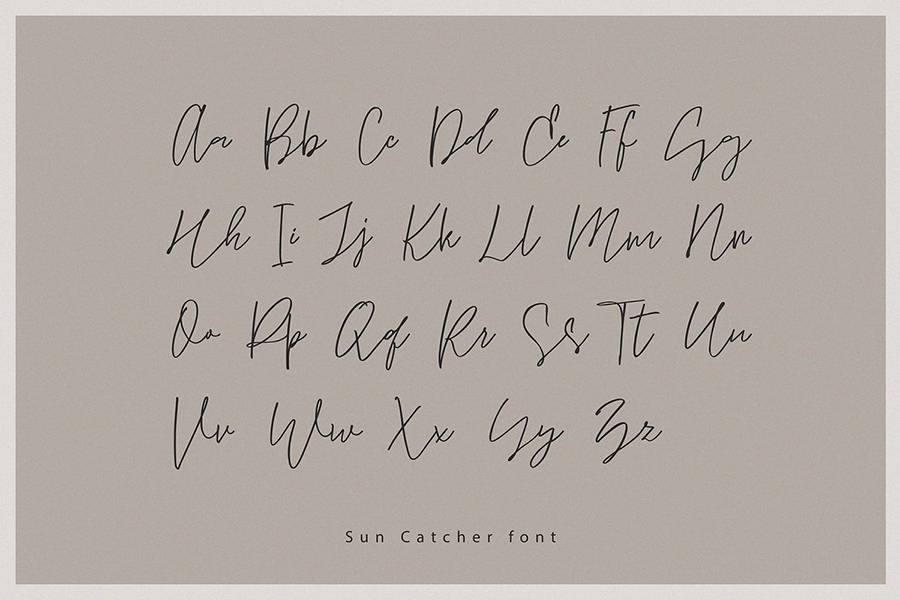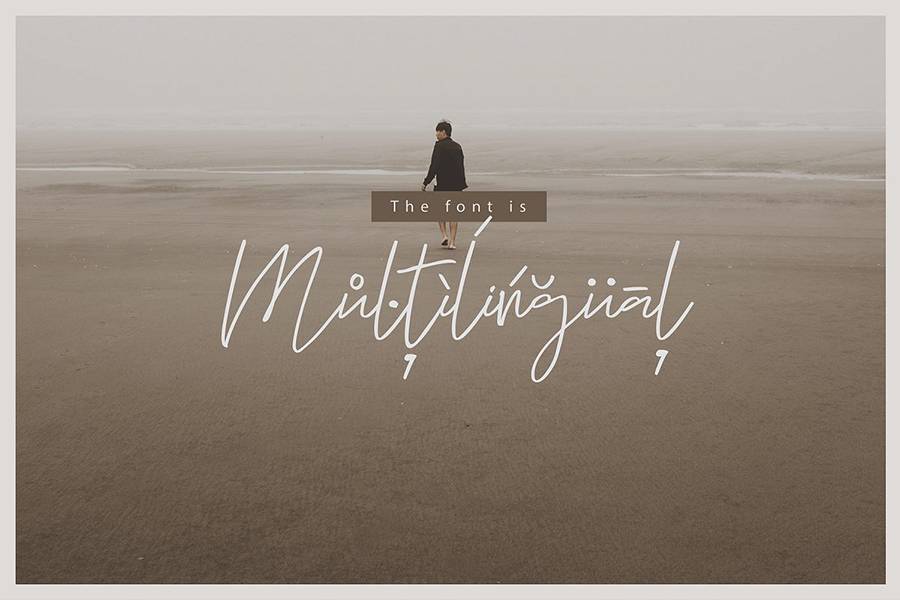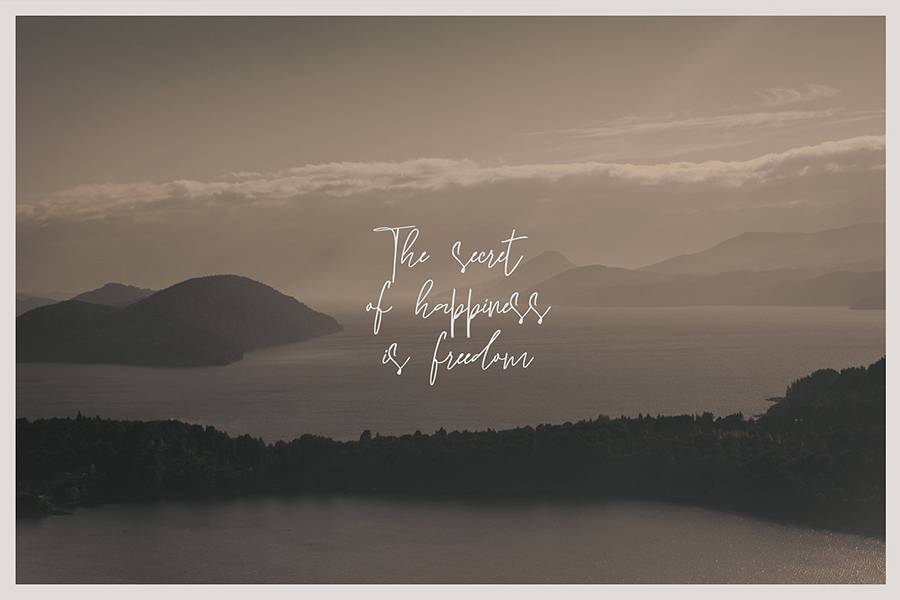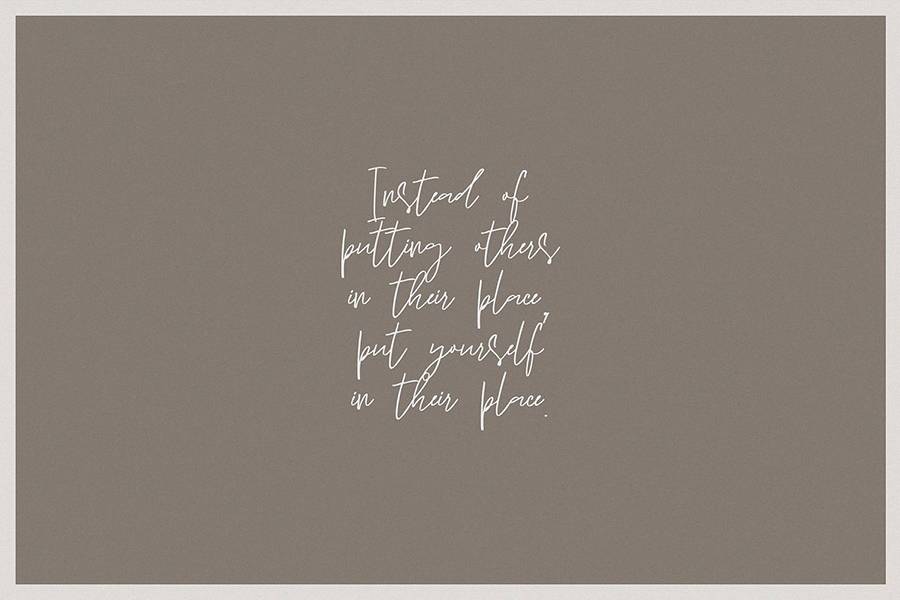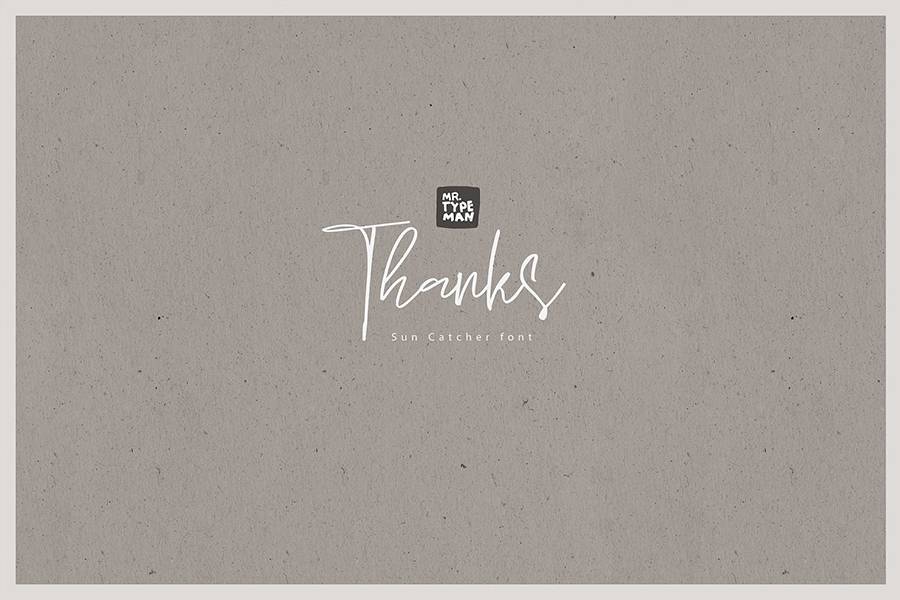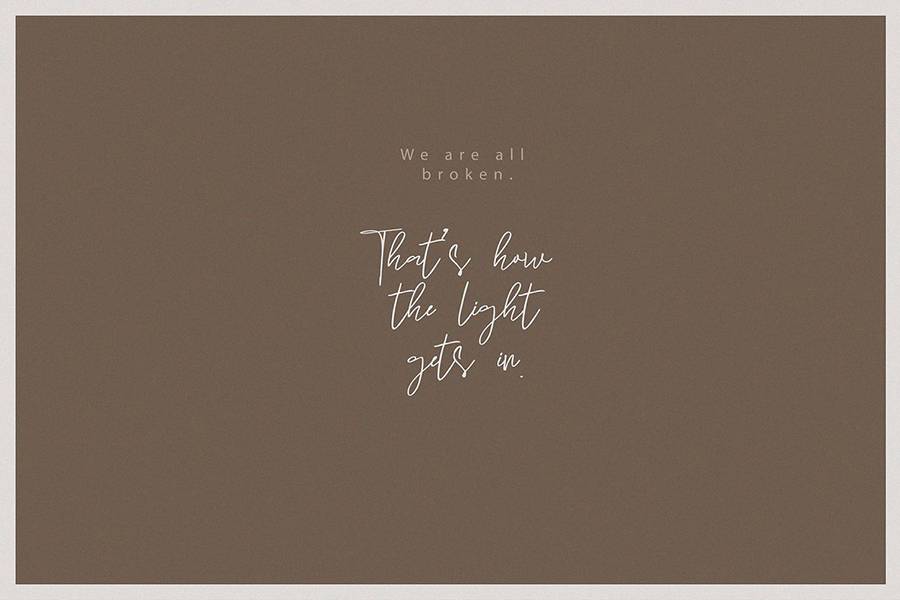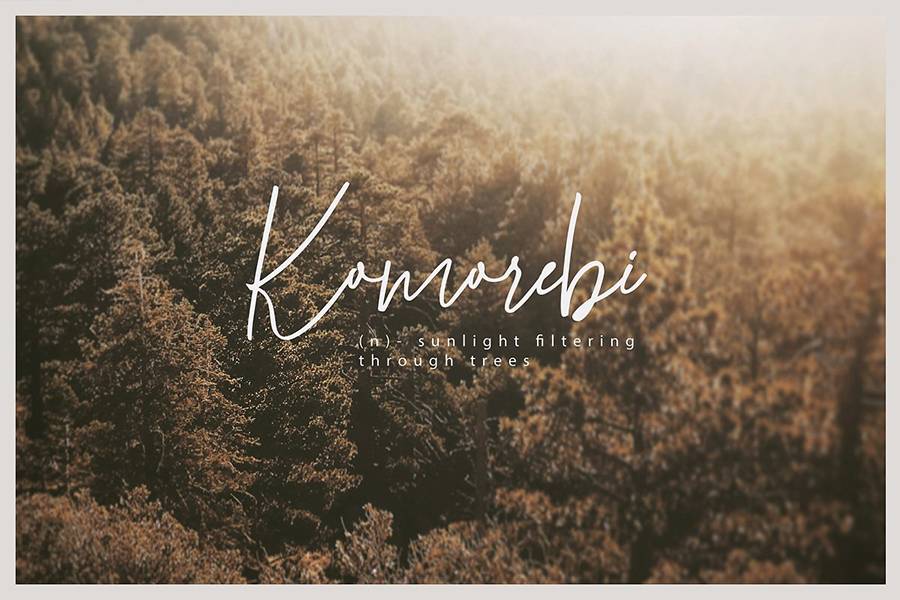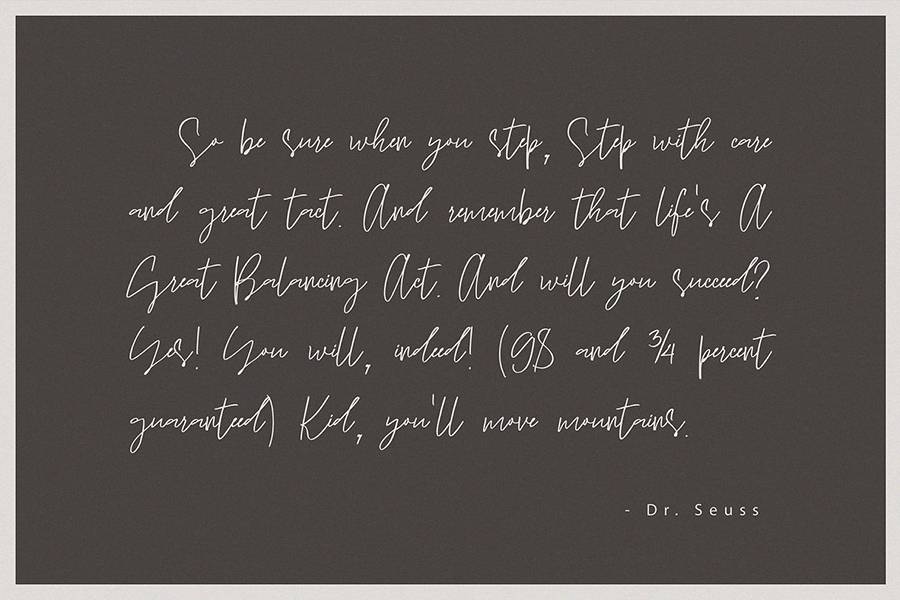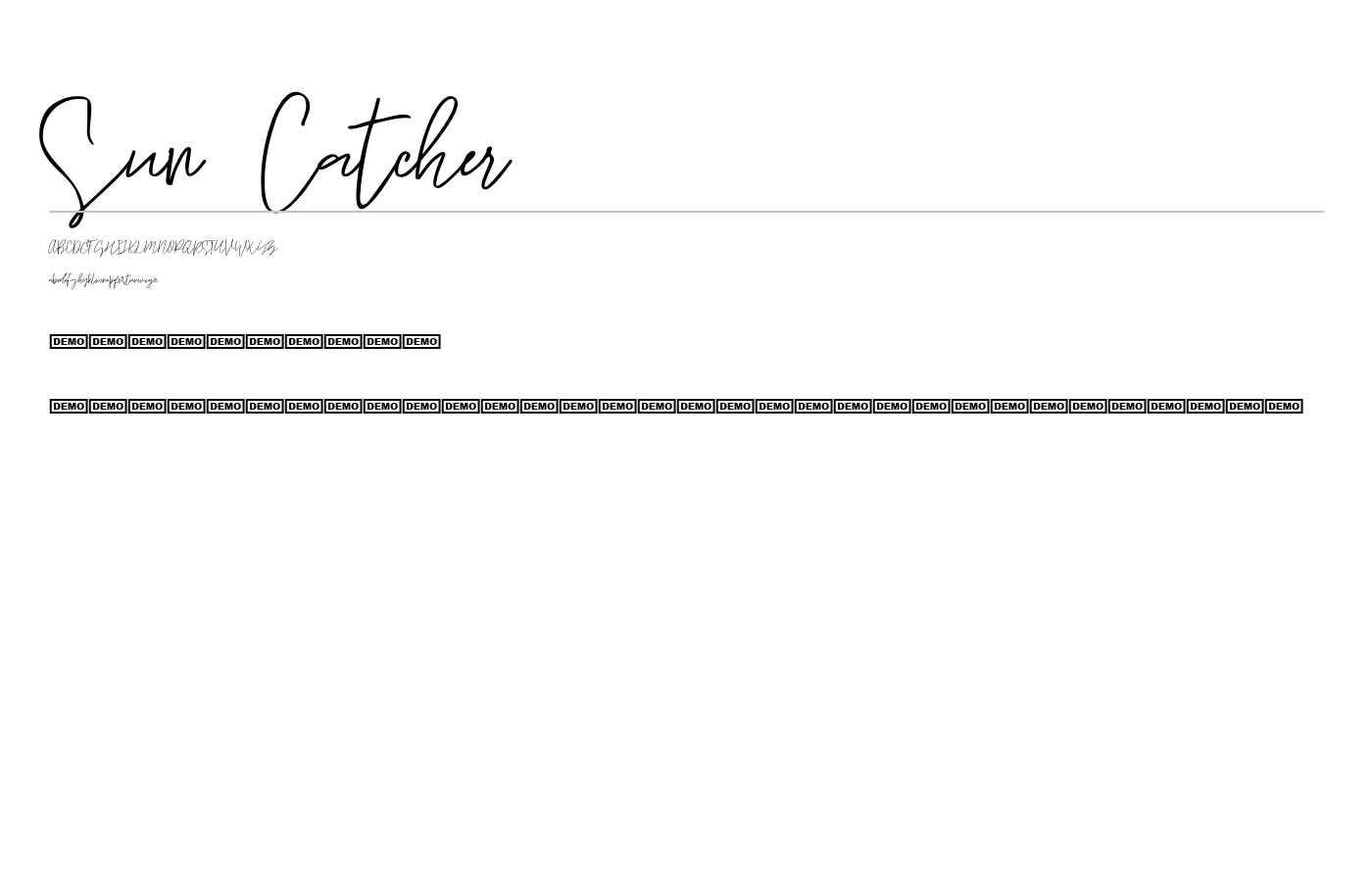
Sun Catcher Handwritten Script is a delicate and elegant script font with a light, airy feel, characterized by its fine, flowing strokes and natural, handwritten style. Its tall, slender letterforms and smooth connected curves create a graceful and modern look, perfect for adding a personal, sophisticated touch to branding, invitations, and lifestyle projects. This font shines in contexts where a refined yet approachable aesthetic is desired, making it ideal for logos, packaging, and editorial designs that seek a warm, artistic vibe.
Sun Catcher Handwritten Script
About Sun Catcher Handwritten Script
| Font family | Sun Catcher Handwritten Script |
| Release date | 2019-06-13 |
| Designer | Hleb Zhyhunou |